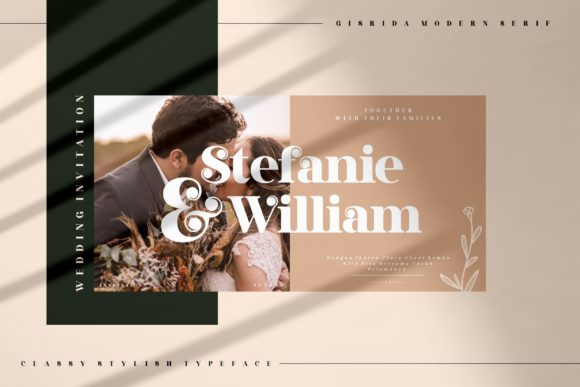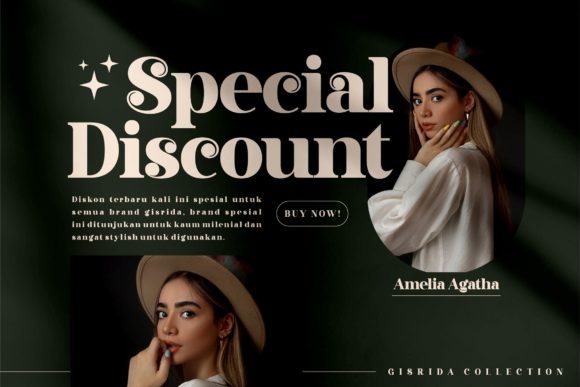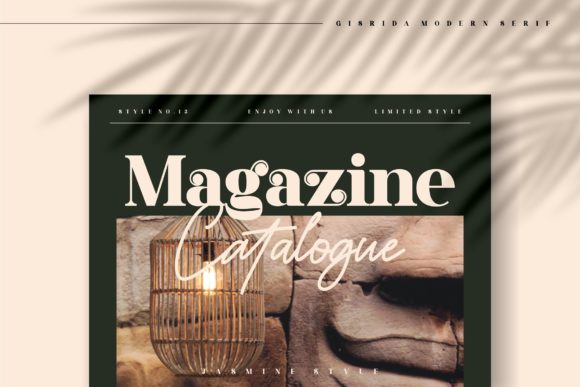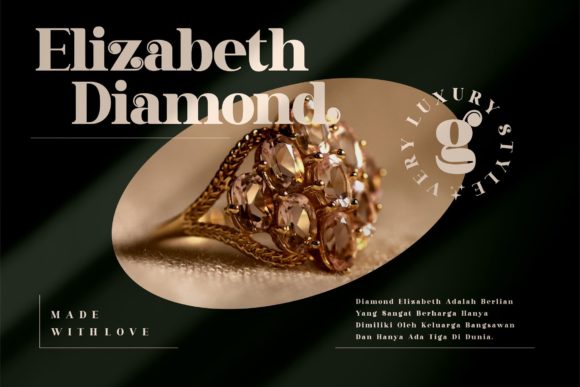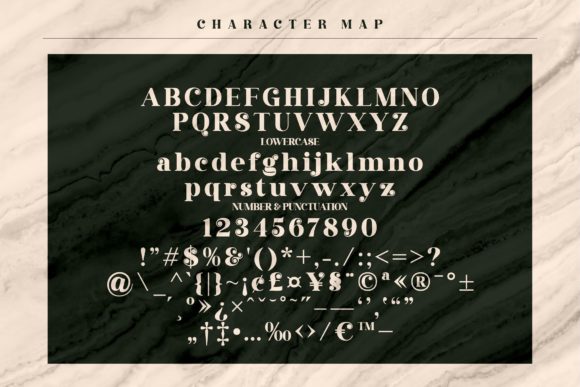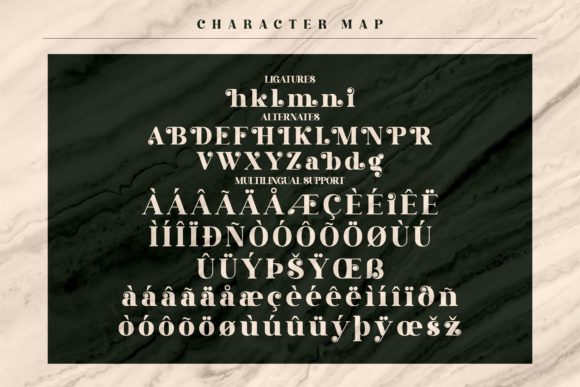
Introduction to Gisrida Font
Have you ever been in the middle of a creative project, staring at a blank page or screen, desperately searching for the perfect font to bring your idea to life? This is where the magic of Gisrida Font comes in – a bold, stylish, and thick lettered serif font that’s sure to elevate your design to the next level.
Not only does Gisrida Font boast a unique and captivating aesthetic, but it’s also PUA encoded, making it incredibly easy to access all of the glyphs and swashes. This means you can confidently add it to your favorite creations, knowing that you’ll be able to customize it to perfection.
Whether you’re a seasoned designer or just starting out, Gisrida Font is an invaluable resource that’s sure to take your designs to new heights. With its high quality and versatility, you can be sure that your creations will stand out from the crowd.
Key Features of Gisrida Font
- High-quality, professional font suitable for creative projects
- Includes a full character set with over 200 glyphs, making it perfect for multilingual projects
Honest Review: Gisrida Font
I recently came across the Gisrida Font, and I must say it’s a great addition to any design library. As a designer, I’m always on the lookout for high-quality fonts that can elevate my creative projects. The Gisrida Font delivers on this promise, offering a clean and modern aesthetic that’s perfect for a variety of design applications.
- ✨ Clean and modern aesthetic
- ✨ Perfect for a variety of design applications
- ✨ High-quality design resource
⚠️ One limitation of the Gisrida Font is its limited character set. While it’s a great font for basic text, it may not be suitable for more complex design projects that require a wide range of characters.
Overall, I’m impressed with the Gisrida Font. Its transparent background and high-quality design make it a valuable resource for any designer. If you’re looking for a clean and modern font to elevate your creative project, the Gisrida Font is definitely worth checking out.
Tips for Getting the Most Out of Gisrida Font
Some tips for getting the most out of Gisrida Font include using it in combination with other design elements, experimenting with different font sizes and colors, and taking advantage of its transparent background to create a unique and eye-catching design.
Common Use Cases for Gisrida Font
Some common use cases for Gisrida Font include creating social media graphics, designing business cards, and creating presentations. The font’s high-quality design and transparent background make it a versatile and useful resource for a variety of creative projects.
Compared to Gisrida Font, Open Sans has a more minimalist and elegant feel, while Gisrida Font has a more playful and handwritten touch.